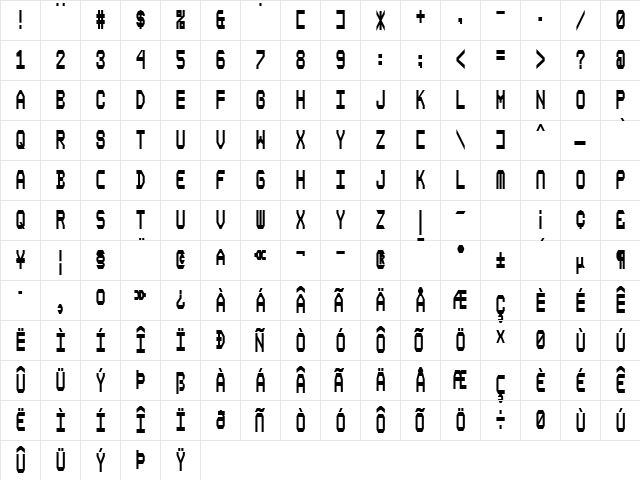
Composite is a composed and adaptable typeface that performs quietly and consistently across a wide range of design contexts. Its bold stroke weight gives it real presence on the page.
Pro Tip: Use Composite in both headline and body roles to test its range before committing to a single application.